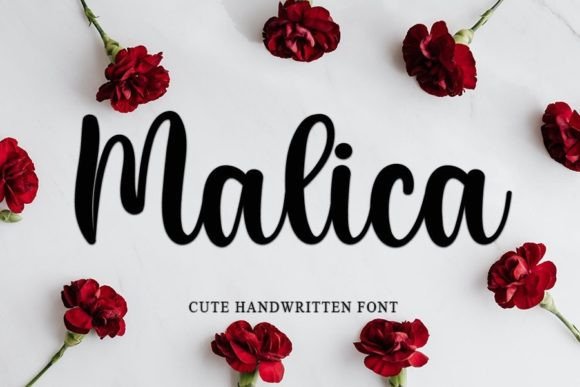
Introducing Malica Font, a captivating handwritten font that will ignite your creativity and elevate any project to new heights! Its elegant and charming curves will instantly add a touch of sophistication to your designs. Perfectly suited for creating stunning menus that will make your culinary masterpieces pop, Malica Font will transform your words into an irresistible symphony of flavors.
With its timeless appeal and ability to evoke a sense of warmth and intimacy, Malica Font is the perfect choice for creating heartfelt invitations, greeting cards, and other personal touches that will leave a lasting impression. Its versatility extends to branding and packaging, adding a unique and memorable touch to your products that will captivate your audience.
Imagine your restaurant's menu adorned with the graceful strokes of Malica Font, enticing diners with its promise of a delectable experience. The elegant curves will guide their eyes through each dish, creating an immersive journey that awakens their taste buds and sets the stage for an unforgettable meal.
But Malica Font's allure extends far beyond the culinary world. Its charm shines through in wedding invitations, adding a touch of timeless romance to the most special day of your life. The flowing letters will dance across the page, reflecting the joy and anticipation of your union.
And for those with a creative flair, Malica Font is the perfect canvas for expressing your artistic vision. Whether you're designing social media posts, website banners, or simply adding a touch of elegance to your personal correspondence, Malica Font will transform your words into eye-catching masterpieces.